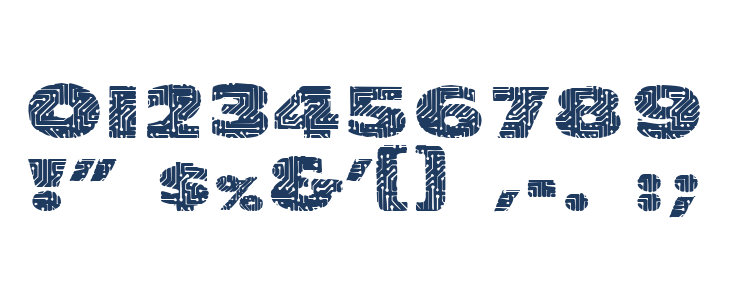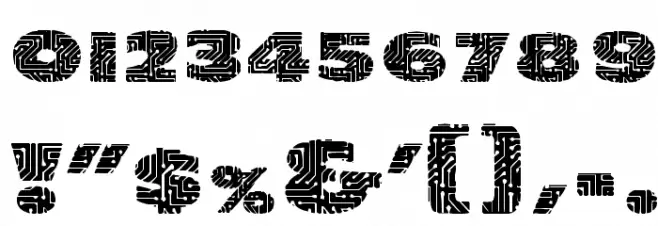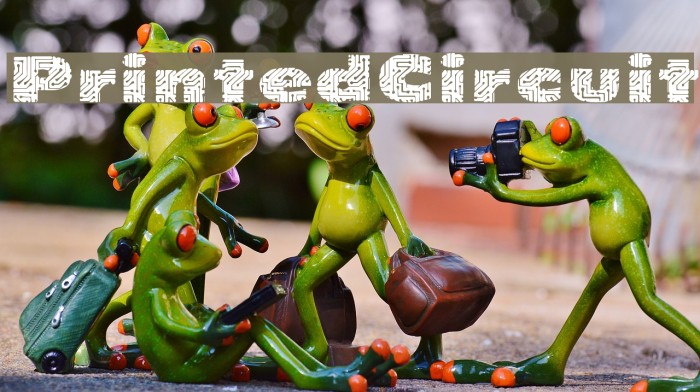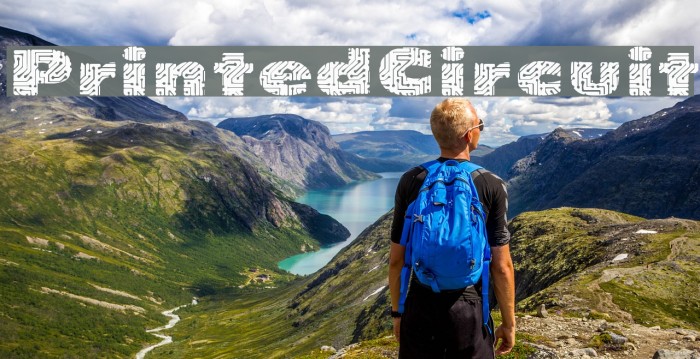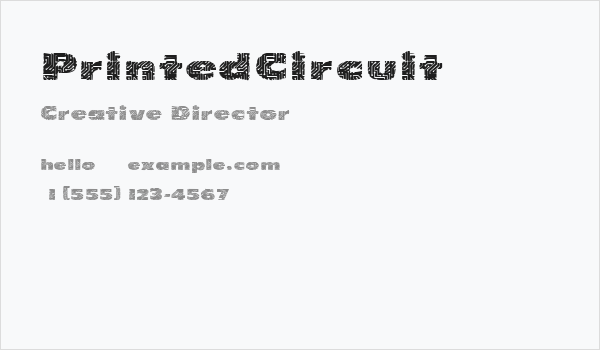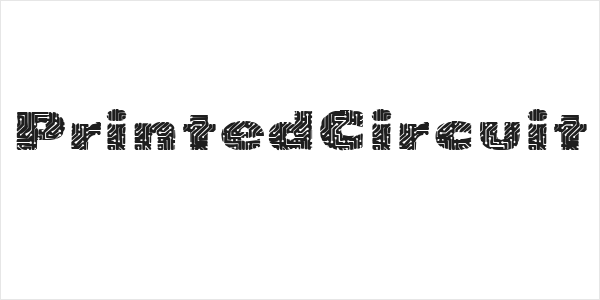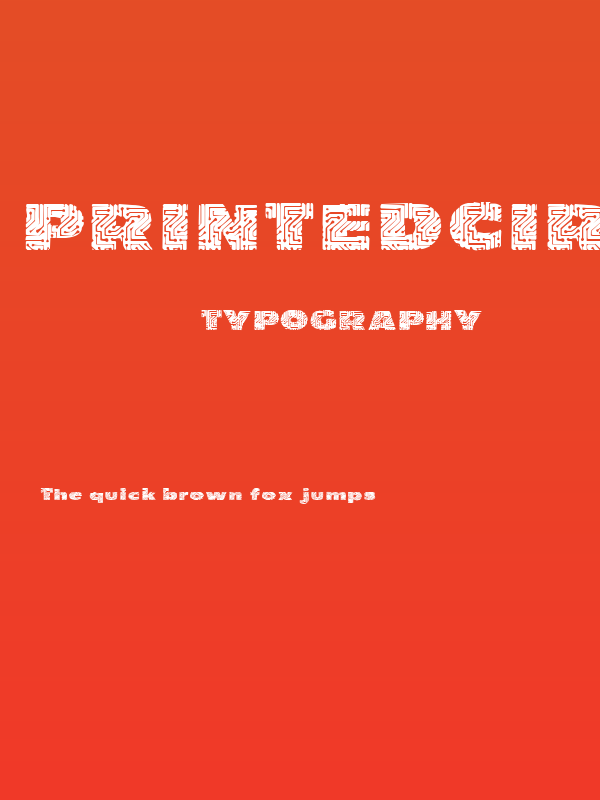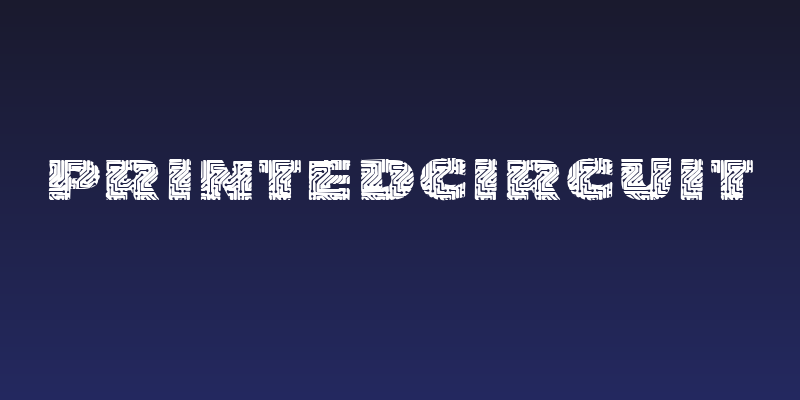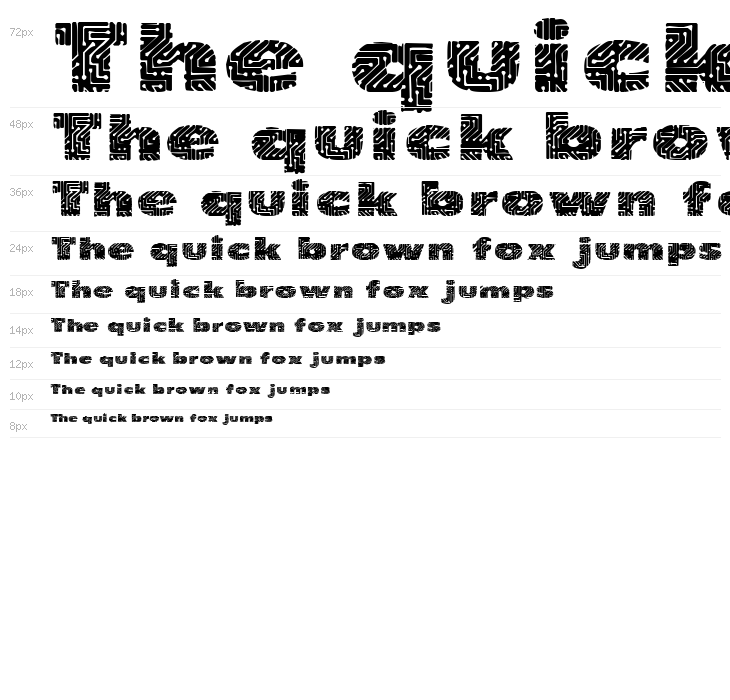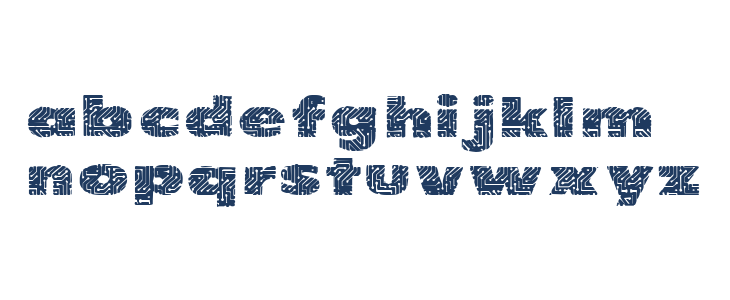
PrintedCircuit Font
PrintedCircuit Description
This font features a unique and intricate design that mimics the appearance of a printed circuit board. Each character is composed of detailed lines and patterns that resemble electronic pathways, giving it a highly technical and futuristic look. The font maintains a consistent structure across uppercase, lowercase, numbers, and special characters, ensuring readability while showcasing its decorative elements. The bold and complex design makes it ideal for projects that require a technological or digital theme. Its distinct style captures attention and adds a modern, innovative touch to any design.
| Proposed Projects | Ideal for tech-themed posters, digital art, branding for electronics, and sci-fi book covers. |